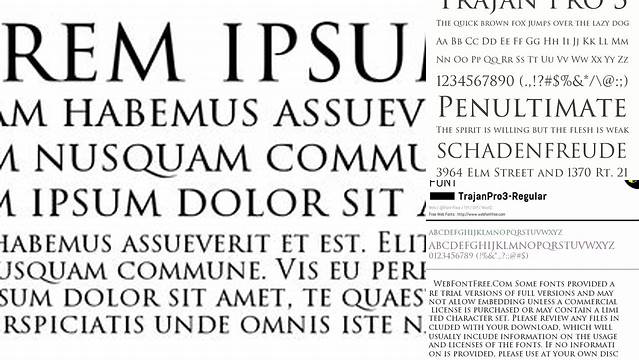
Trajan Pro 3: Free Font Download? Find Alternatives Now!
Hey guys! Ever been captivated by a font that just oozes Roman elegance and timeless appeal? Chances are, you've stumbled upon Trajan Pro 3 Regular. This font, inspired by the lettering on the base of Trajan's Column in Rome, is a true classic in the design world. It's widely used in everything from movie posters and book covers to high-end branding and editorial design. Its authoritative yet graceful appearance makes it a top choice for projects that require a touch of sophistication and historical gravitas. But where can you snag this iconic font without breaking the bank? Let's dive into the world of Trajan Pro 3 Regular and explore your options for a free download, while also keeping copyright and ethical usage in mind.
Understanding Trajan Pro 3 Regular
Before we jump into the download details, let's get a better grasp of what makes Trajan Pro 3 Regular so special. Designed by Carol Twombly for Adobe in 1989, it's not just another typeface; it's a meticulously crafted piece of art. The font embodies the principles of classical Roman letterforms, characterized by its clean lines, balanced proportions, and strong serifs. Its uppercase-only design lends it a monumental feel, perfect for headlines, titles, and display purposes. Think of those epic movie posters – titles like "Gladiator" or "Troy" often utilize fonts similar to or directly use Trajan Pro to evoke a sense of grandeur and historical authenticity. The beauty of Trajan Pro 3 Regular lies in its ability to convey both strength and elegance, making it incredibly versatile for various design applications. It’s not just about looking old; it’s about capturing the essence of Roman artistry and bringing it to modern-day designs. Because of its widespread recognition and association with prestige, using Trajan Pro 3 Regular can instantly elevate the perceived value and quality of a design project. However, due to its popularity and specific aesthetic, it's important to use it judiciously to avoid clichés and ensure it complements the overall design effectively.
Alternatives to Trajan Pro 3 Regular: Similar Fonts
If a free download of Trajan Pro 3 Regular proves elusive, don't fret! The good news is that numerous fonts capture a similar aesthetic. These alternatives can provide the Roman-inspired elegance you're looking for without the hefty price tag. Here are a few excellent options:
- ** নিজেরাই Roman:** This font is a classic and widely available alternative that shares many similarities with Trajan Pro. It’s clean, elegant, and perfect for headlines and display purposes.
- ** высоким Roman:** Another strong contender, высоким Roman offers a slightly more modern take on the Trajan Pro aesthetic, making it a versatile choice for various design projects.
- Optima: While not a direct replica, Optima's humanist sans-serif design evokes a similar sense of classical balance and sophistication, making it a great option for a more contemporary feel.
- Bebas Neue: For a bolder, more modern take, Bebas Neue's condensed sans-serif style can provide a similar impact, especially when used in all caps.
Exploring these alternatives allows you to achieve a similar visual effect while staying within your budget and respecting copyright laws. Remember to consider the specific requirements of your project when selecting a font. Factors like readability, scalability, and overall aesthetic should all play a role in your decision.
How to Identify Fonts Similar to Trajan Pro 3 Regular
Okay, so you've seen Trajan Pro 3 Regular in action and want to find something similar. How do you go about it? Thankfully, there are some nifty tools and techniques you can use to identify fonts that capture that same Roman vibe.
Conclusion: Finding the Right Font for Your Project
So, there you have it! While a direct, legal, and free download of Trajan Pro 3 Regular might be a challenge, there are definitely ways to achieve a similar look and feel for your design projects. Whether you explore Adobe Fonts, seek out alternatives, or utilize font identification tools, remember to prioritize ethical font usage and respect the work of font designers. Ultimately, the right font choice depends on the specific requirements of your project and your overall design vision. By understanding the characteristics of Trajan Pro 3 Regular and exploring your options, you can make an informed decision and create designs that are both visually stunning and ethically sound. Happy designing, folks!